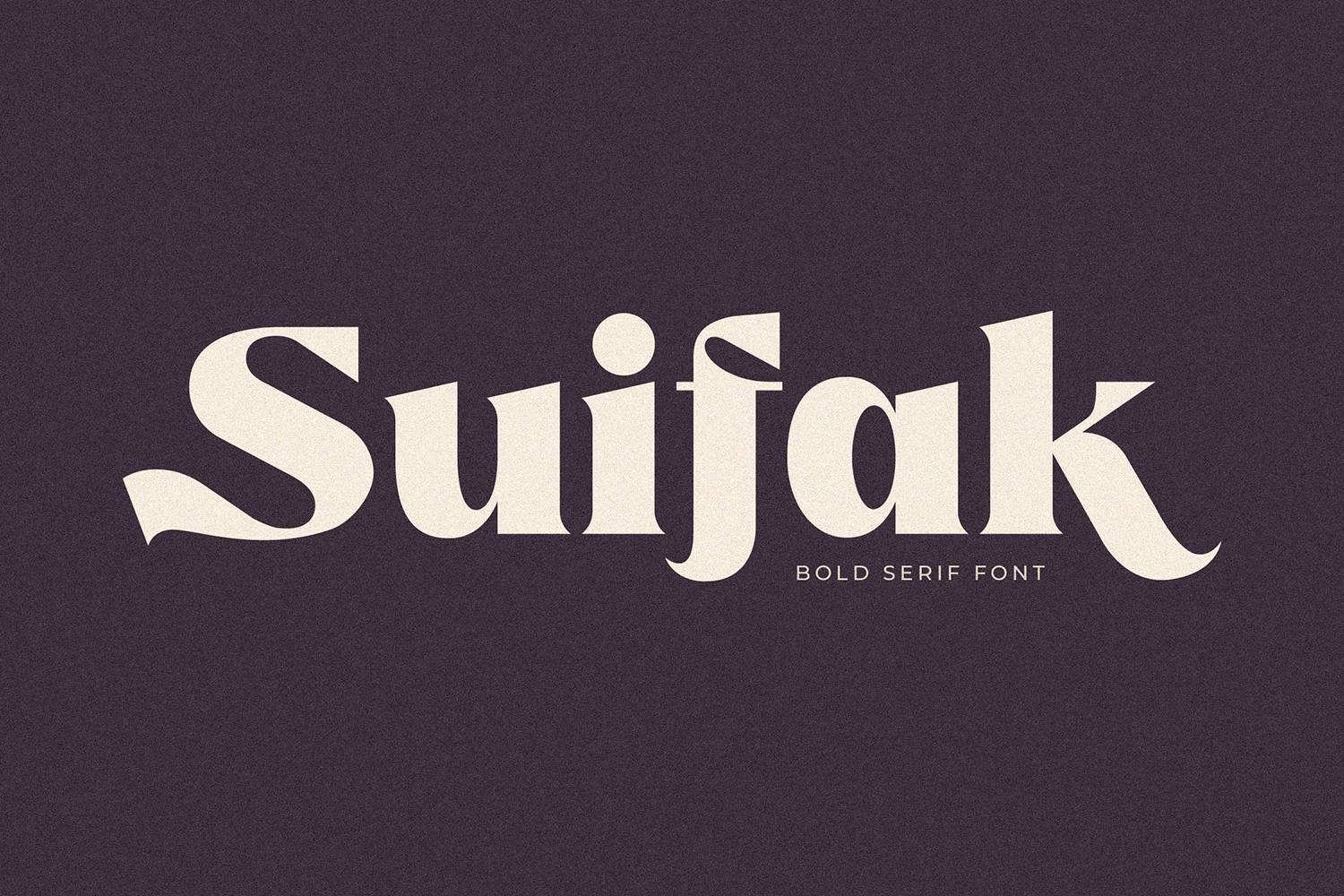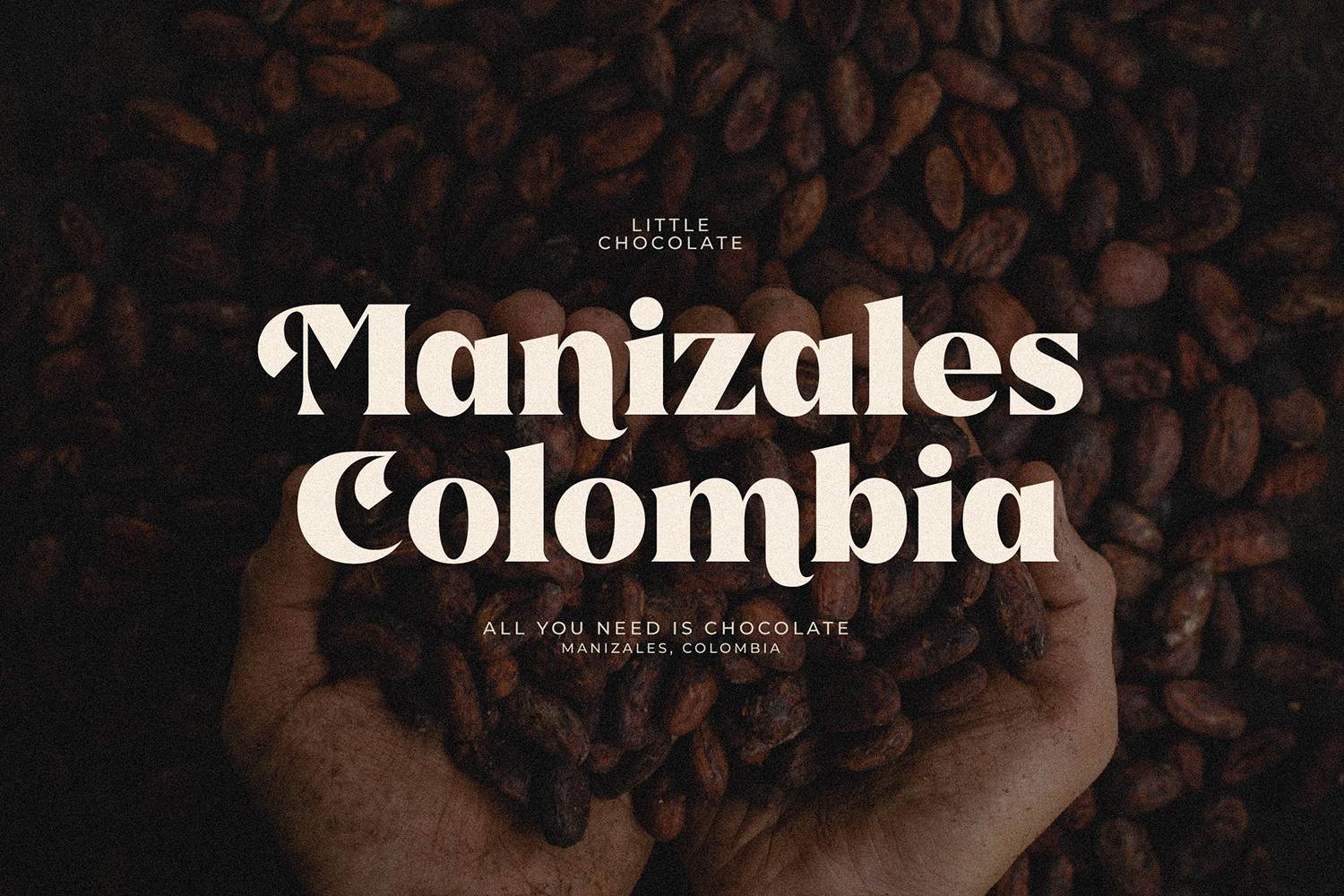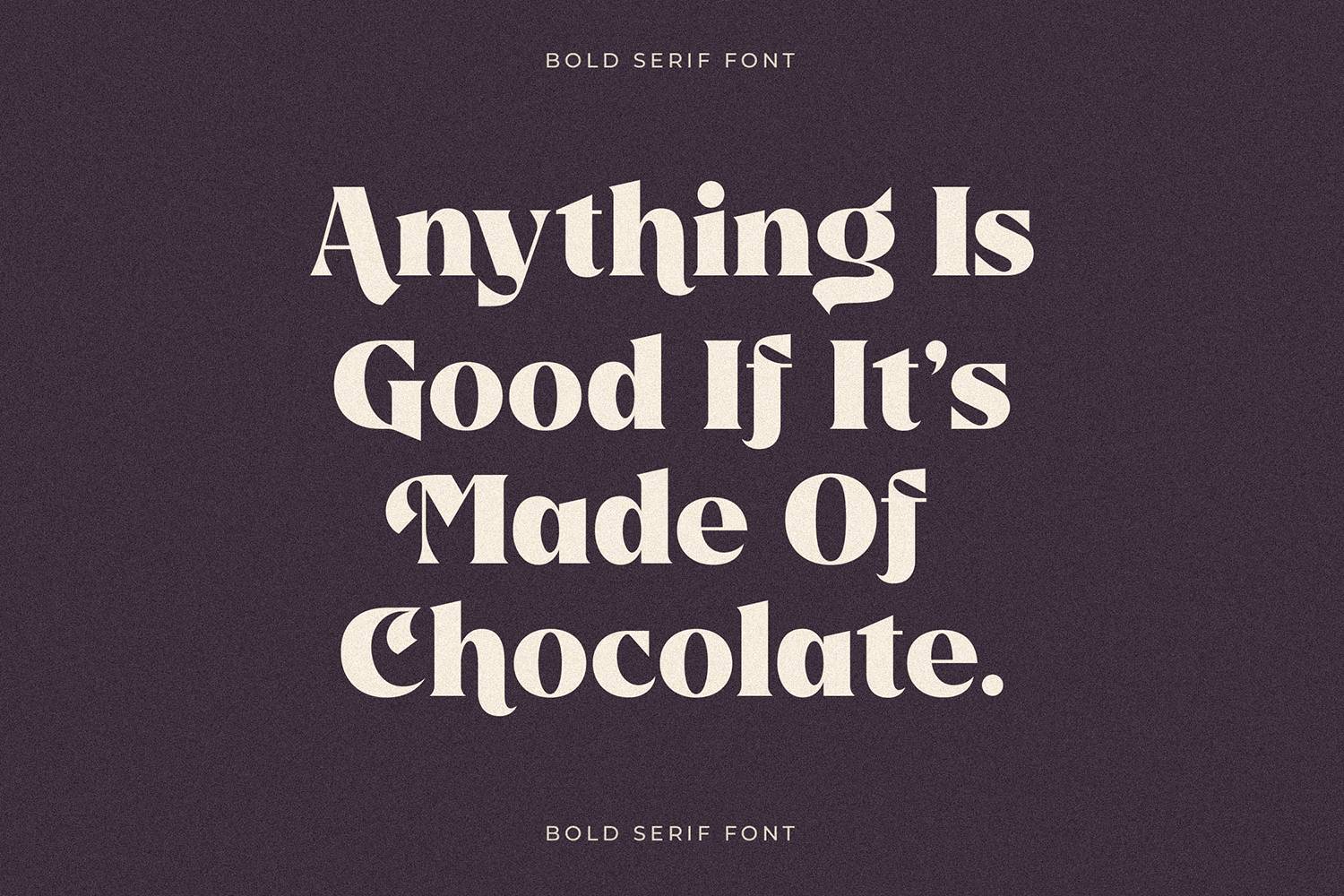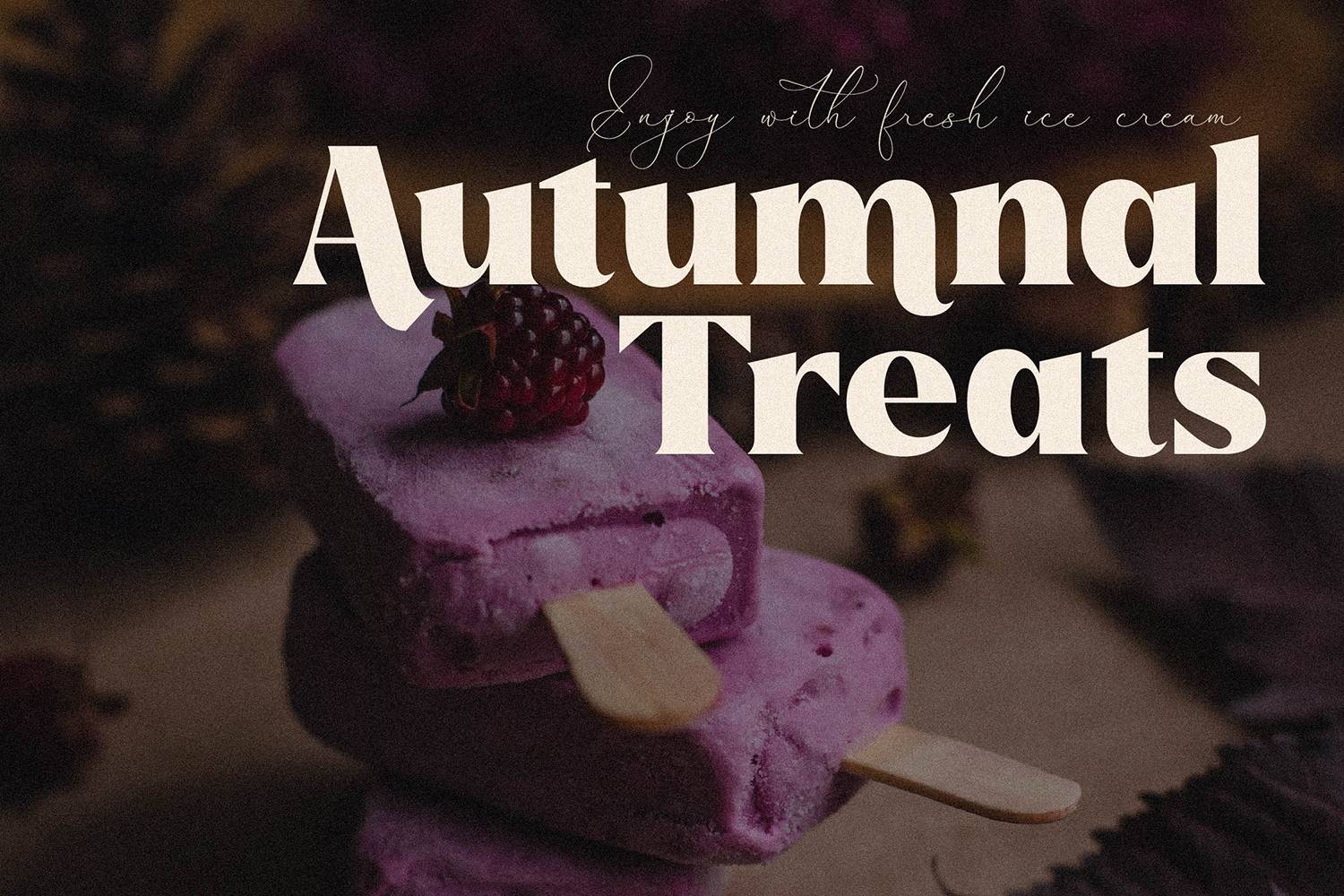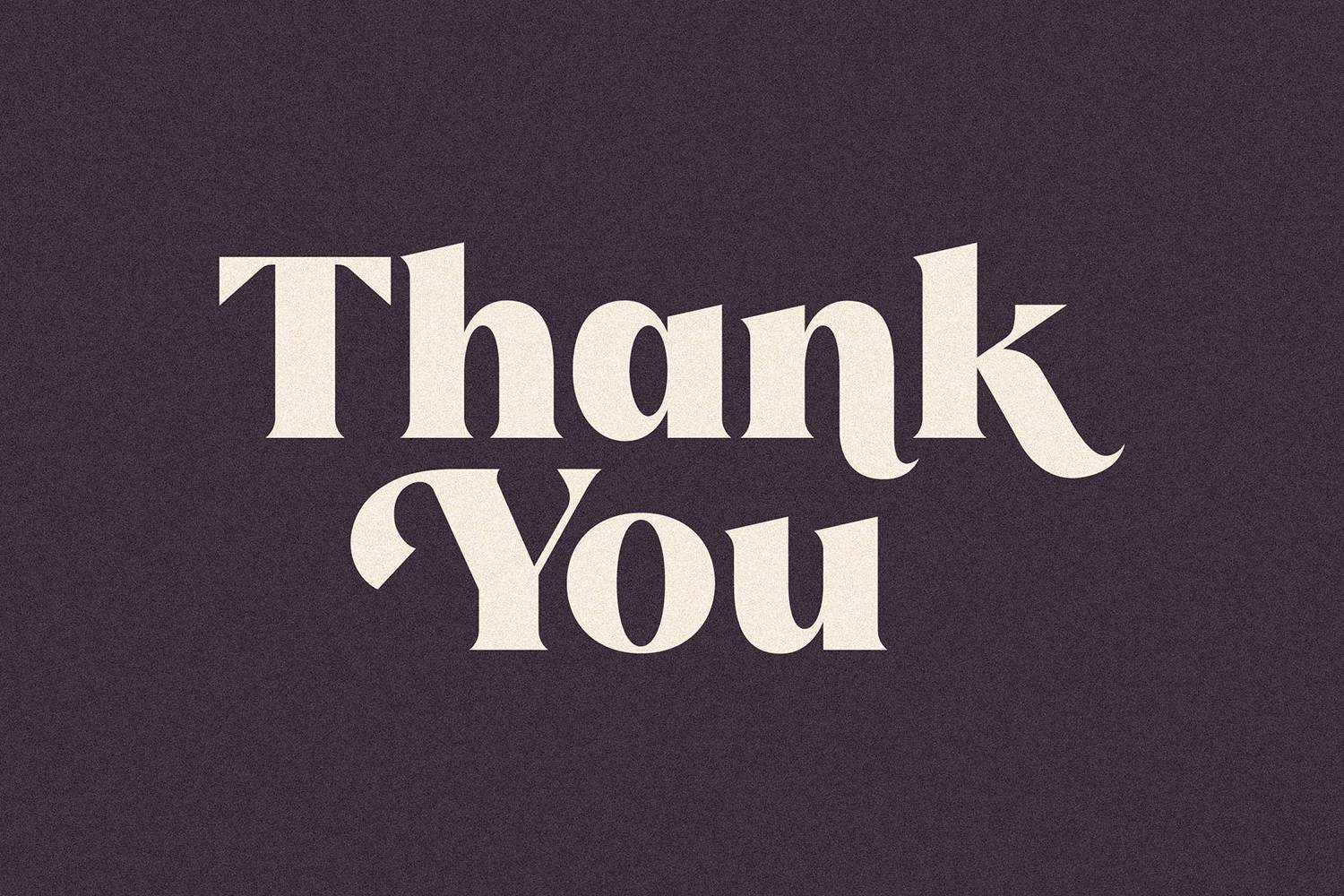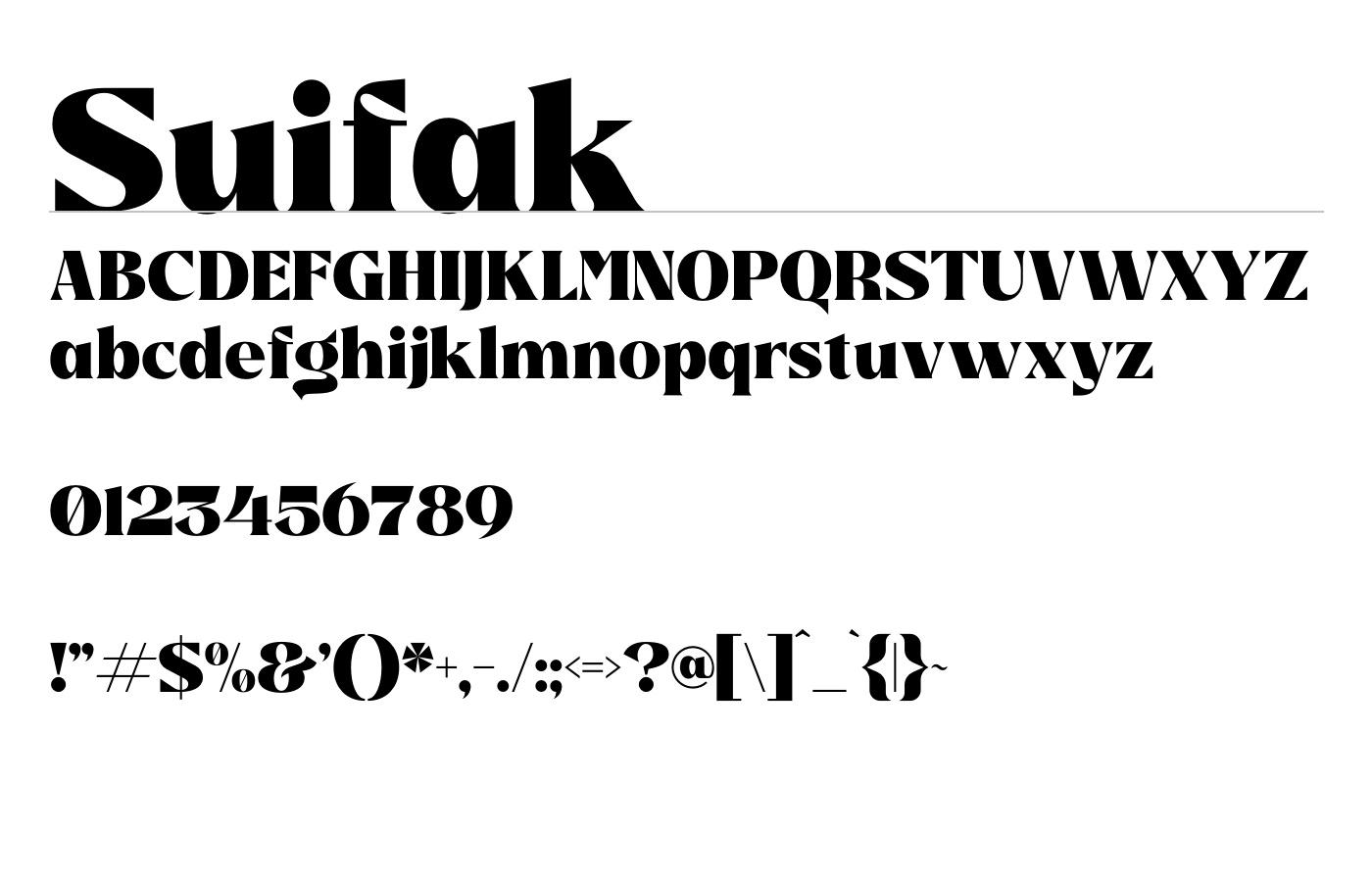
Suifak is a bold, modern serif font with a high-contrast stroke style and striking sharp angles that bring a unique edge to classic letterforms. Its strong presence and elegant curves make it ideal for impactful headlines, fashion branding, and editorial design where a luxurious yet contemporary vibe is desired. This font draws attention effortlessly, combining tradition and modernity for standout visual appeal.
Suifak Font